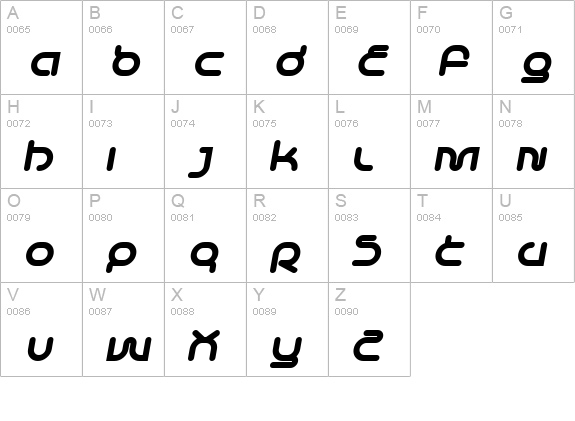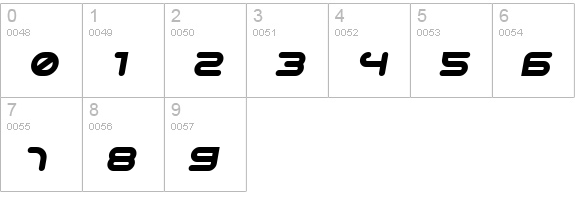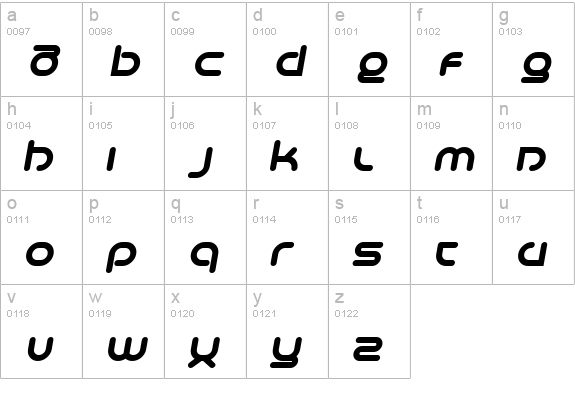
Life in Space BoldItalic Font Details
Life in Space is a captivating and futuristic typeface that brings a sense of adventure and innovation to your projects. Its sleek and modern design, with bold and italic styling, makes it perfect for space-themed designs, sci-fi projects, and tech-related content. The unique curves and sharp edges of this font will give your text a dynamic and eye-catching look. What makes Life in Space even more appealing is that it is freely available to download at FontsMarket.com. Whether you are a designer looking to add a touch of sci-fi flair to your work or a content creator wanting to make a statement, Life in Space is the perfect choice. Embrace the spirit of exploration and discovery with this striking font and take your designs to new heights.